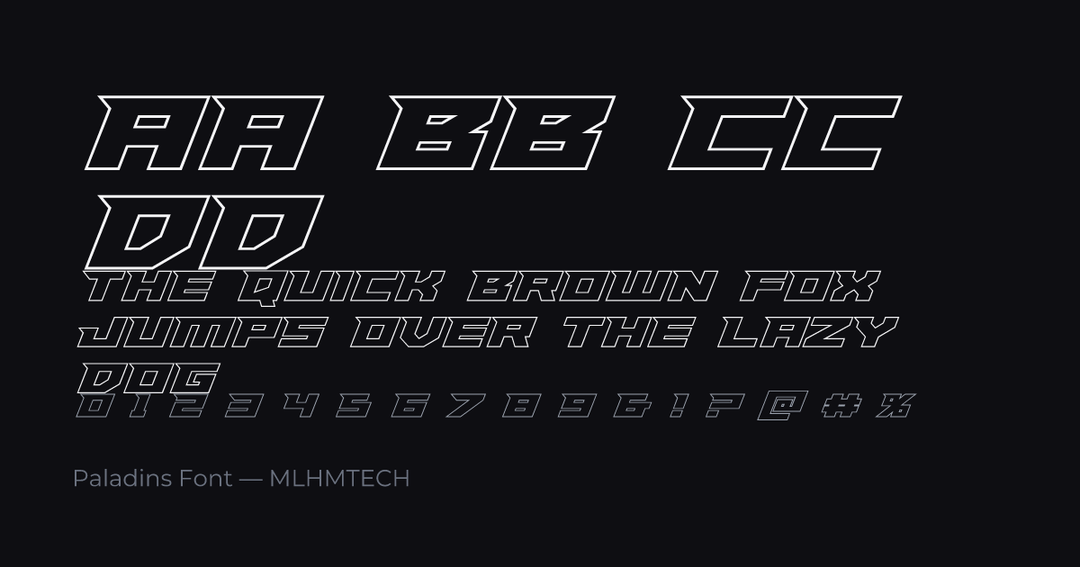
Paladins Font
A bold, fantasy-inspired display font with sharp edges and a medieval feel. Ideal for gaming, titles, and posters.
Paladins is a display font that exudes strength and adventure. Its sharp, angular letterforms and heavy strokes make it perfect for headlines, game titles, and any design needing a heroic touch. The font is provided in TTF format, ensuring compatibility with most design software.